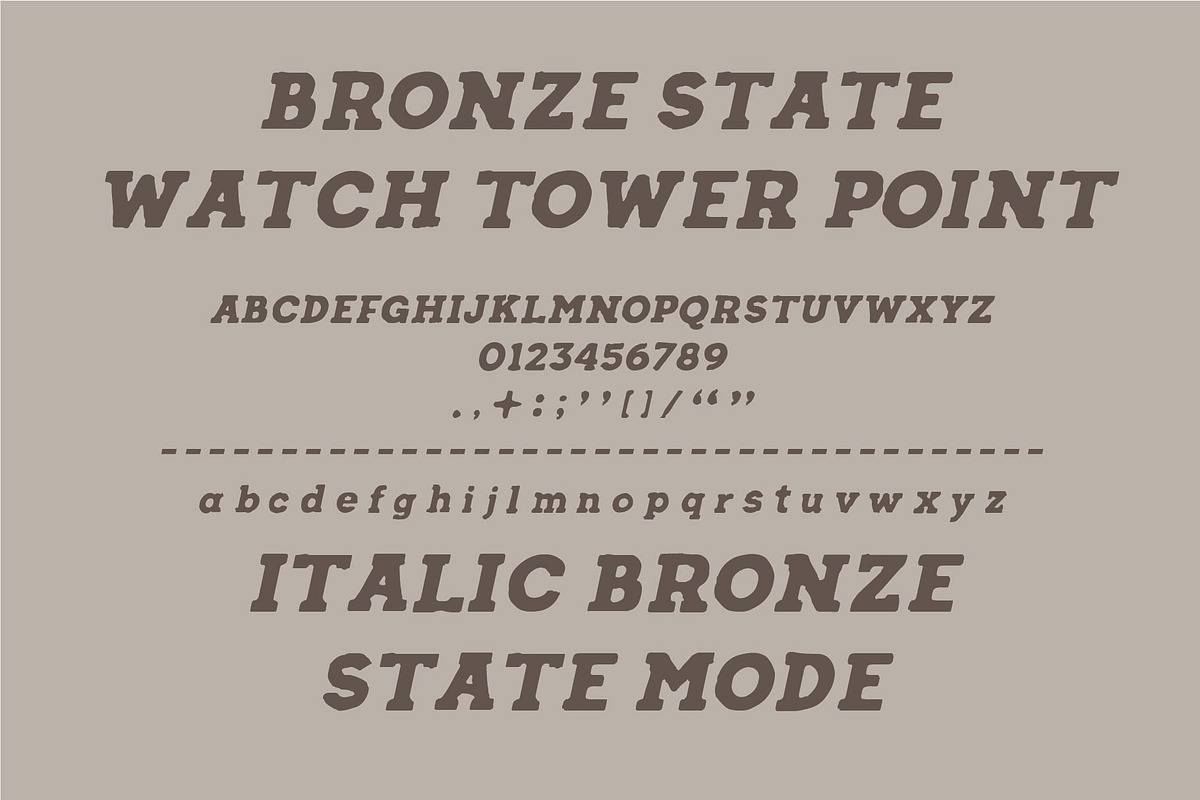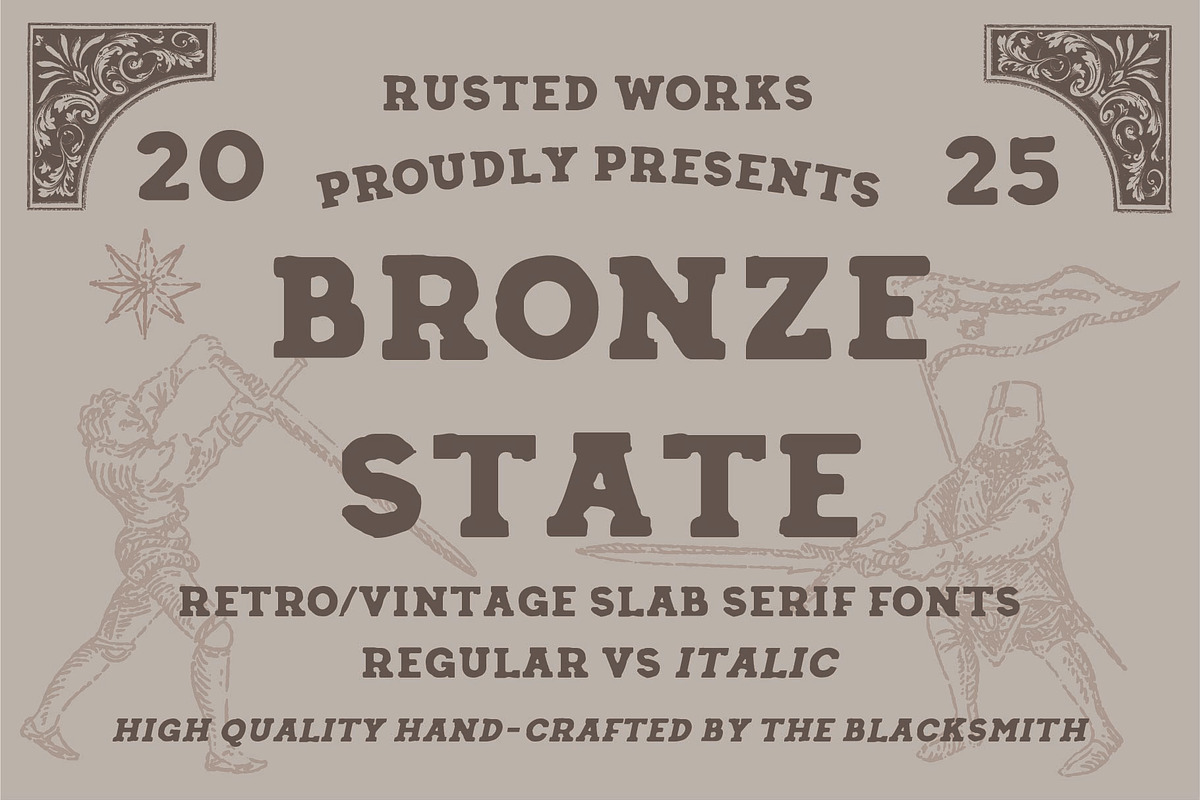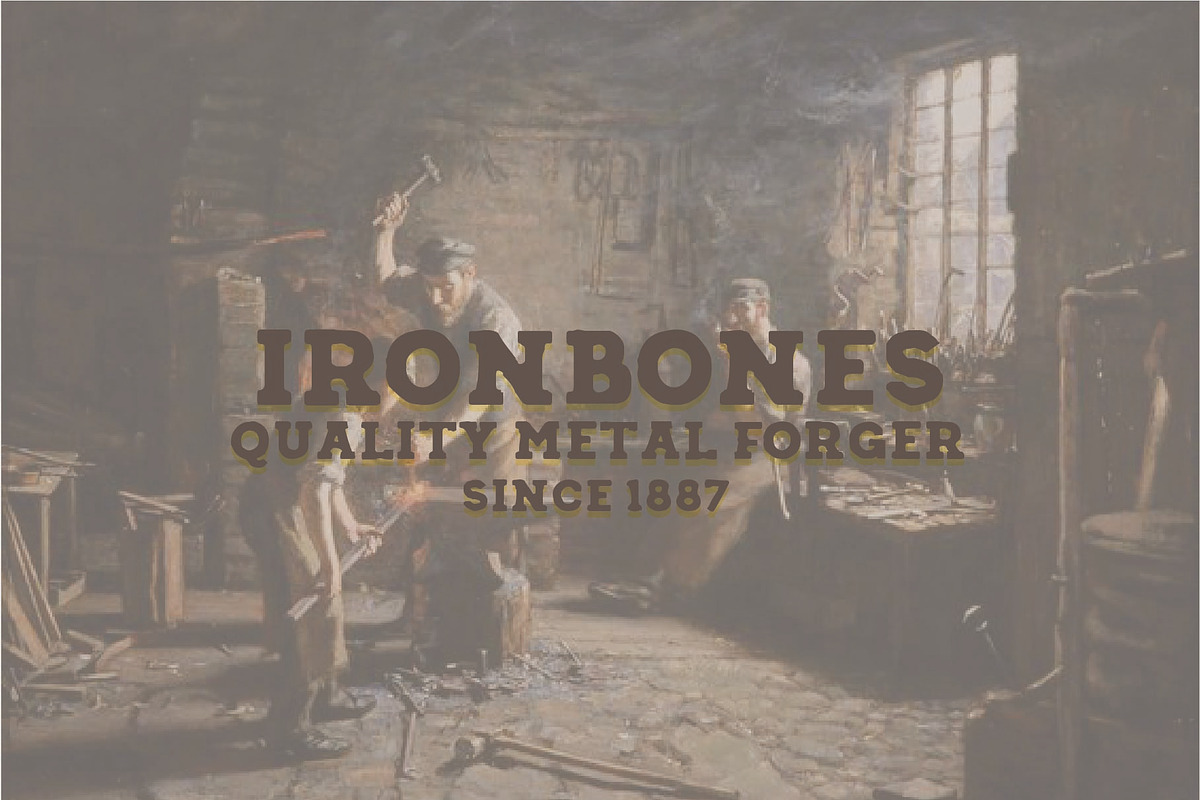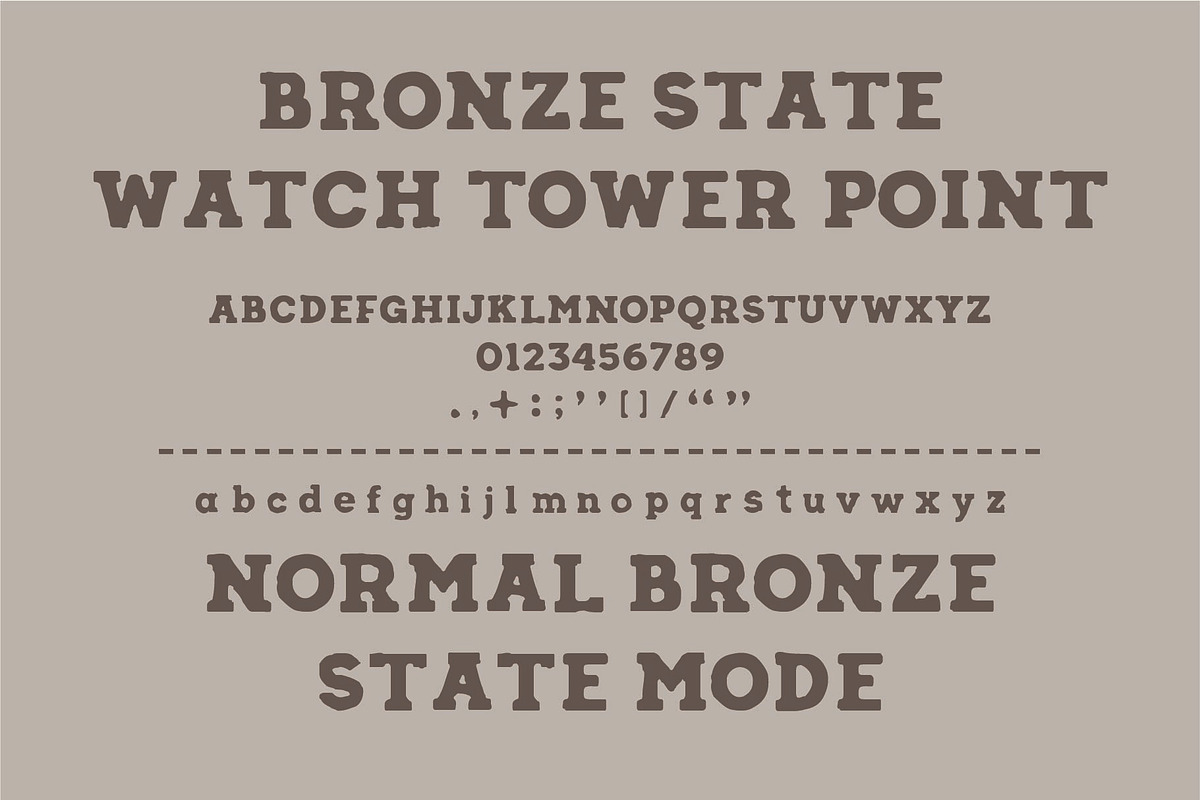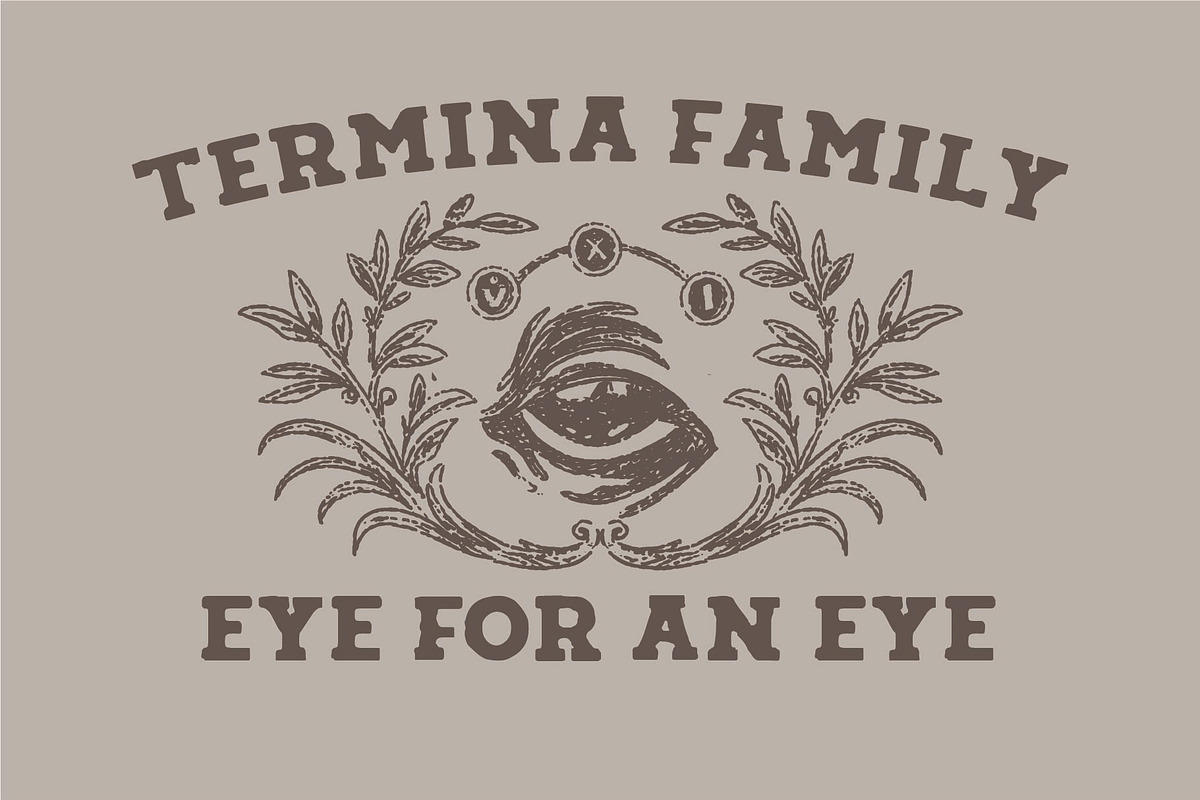
Bronze State - Slab Serif
Bronze State is a bold retro slab serif with strong vintage character and handcrafted detail. Built for designers who want heritage style with modern impact.
A timeless typeface — crafted to make every design feel iconic.
Built for : Branding & Logo Design Vintage Packaging & Labels Whiskey / Coffee / Brewery Branding Retro Posters & Signage Apparel & Merchandise Editorial / Museum / Heritage themes Western / Medieval